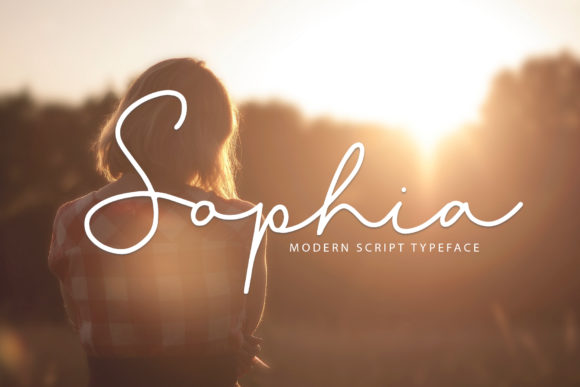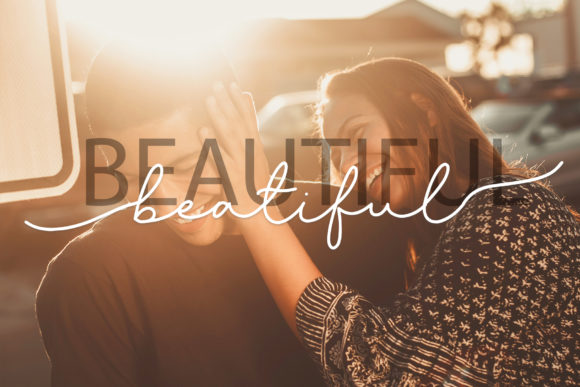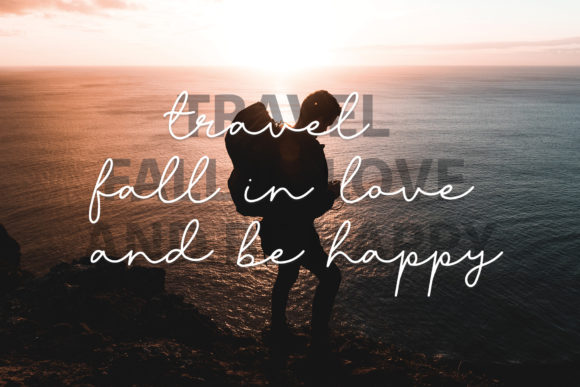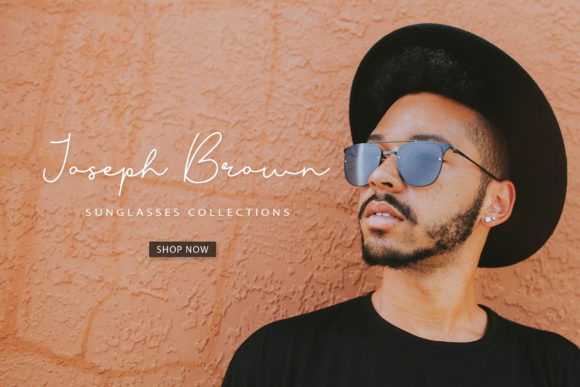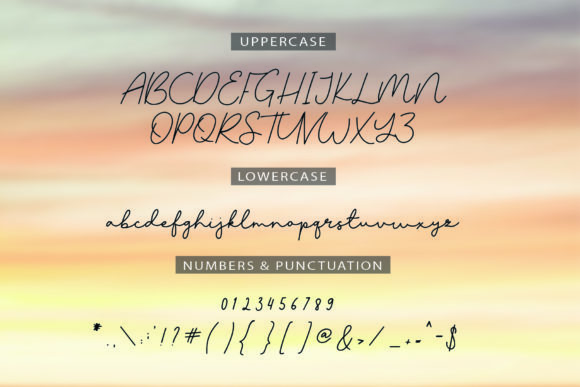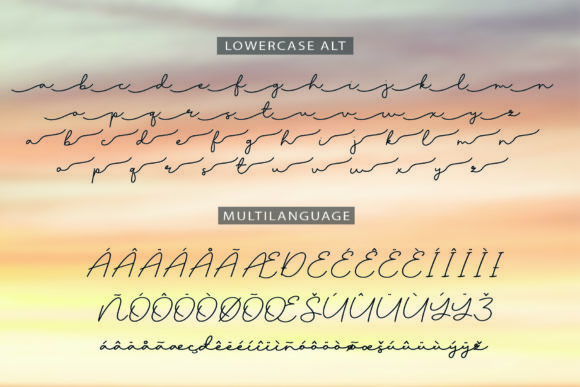
Sophia Font
About Sophia Font
Sophia is a beautiful and authentic handwritten font that is easy to remember. Fall in love with its unique charm and turn any design idea into a stand out.